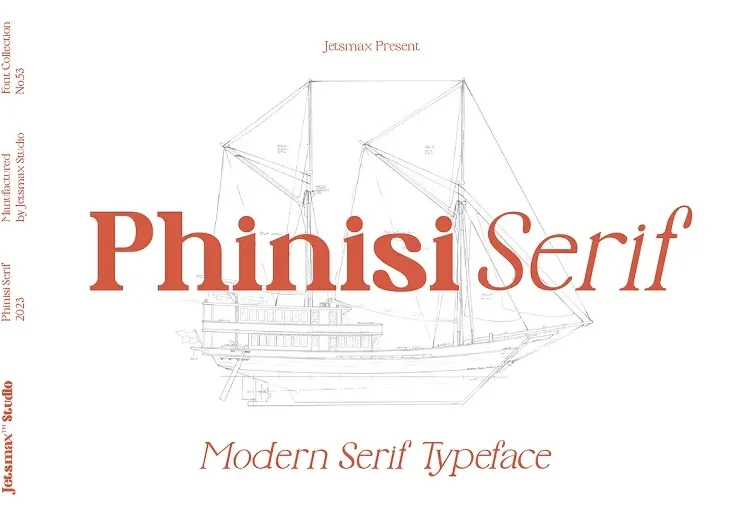
Phinisi Serif Font Family
Phinisi Serif Font Family is a modern classic, offering a sophisticated yet highly legible design that’s optimized for text. Available in a variety of weights and styles, this versatile typeface is perfect for a wide range of projects, from corporate publishing to more playful and creative designs.
Its adaptability makes Phinisi Serif an excellent choice for both professional and casual applications, ensuring that your designs remain sharp, polished, and readable while conveying a timeless elegance. Whether you’re designing for business or creative purposes, this font brings a refined touch to any project.